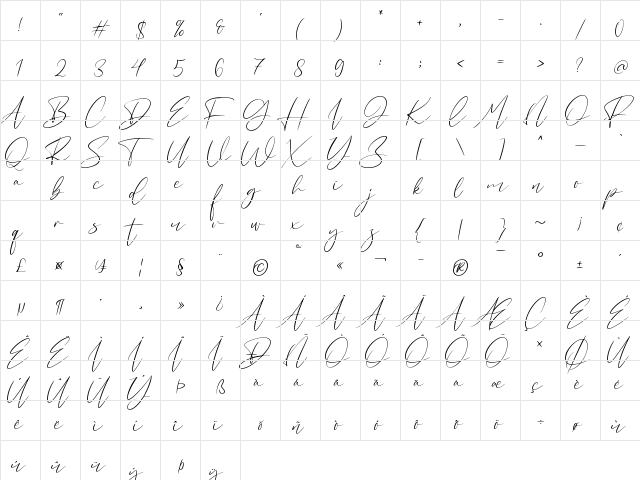
Rellyan Charlotte Regular
| Designer | Muhammad Farhan Sholeh Ramadhika |
Design Context for Rellyan Charlotte Typeface
Rellyan Charlotte is a composed and adaptable typeface that performs quietly and consistently across a wide range of design contexts.